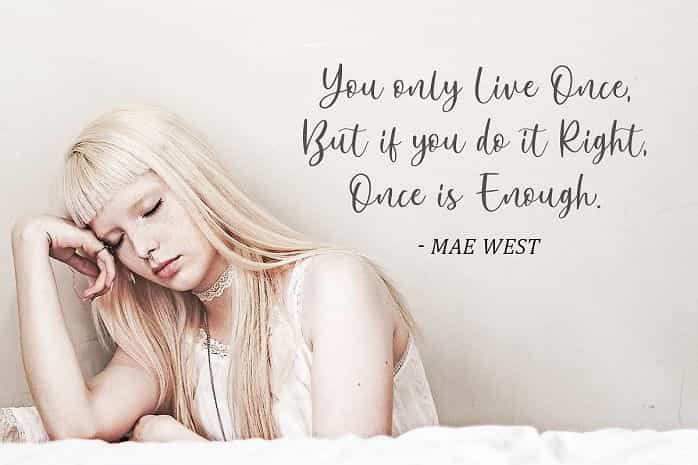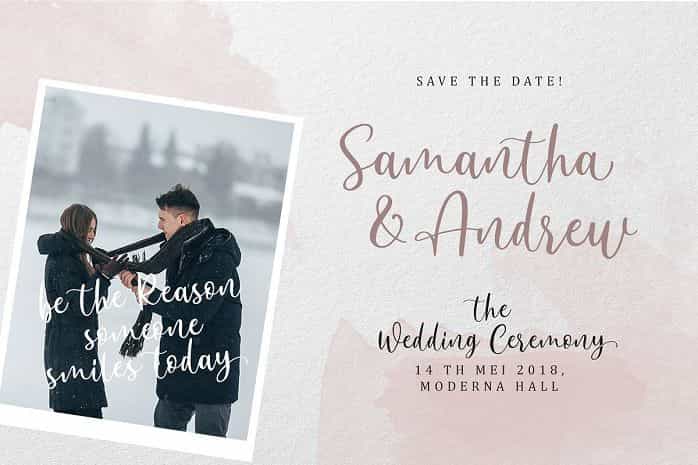
Anjani – a modern calligraphy script that is associated with romanticism. The natural hand writing script is for you if you need a typeface for headline, logotype, apparel, invitation, branding, packaging etc. This font comes in uppercase letters and lowercase letters plus punctuation marks symbols & numerals with or without the use of stylistic set alternate and ligatures.